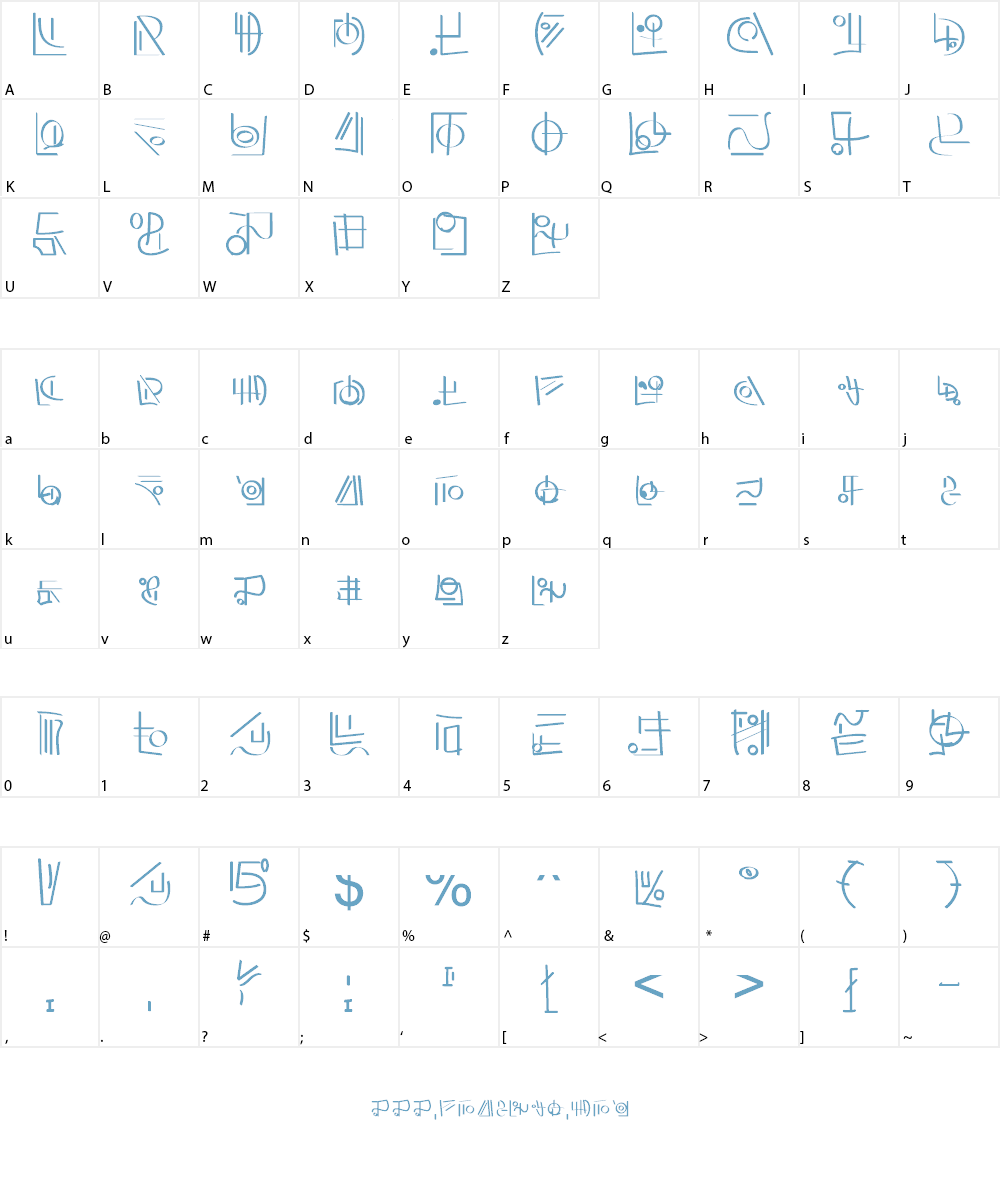
The XiDus program is a project headed by LJ Design Studios, consists in the research of languages ​​or ancient languages ​​of our world, conducting a study of the symbology and meaning of them to result in a fusion of symbols which are part of these alphabet.
There are about 6 prototypes of this type of typographical fonts which have quite remarkable purposes such as the encryption of information using keys using the parameters of the symbols.